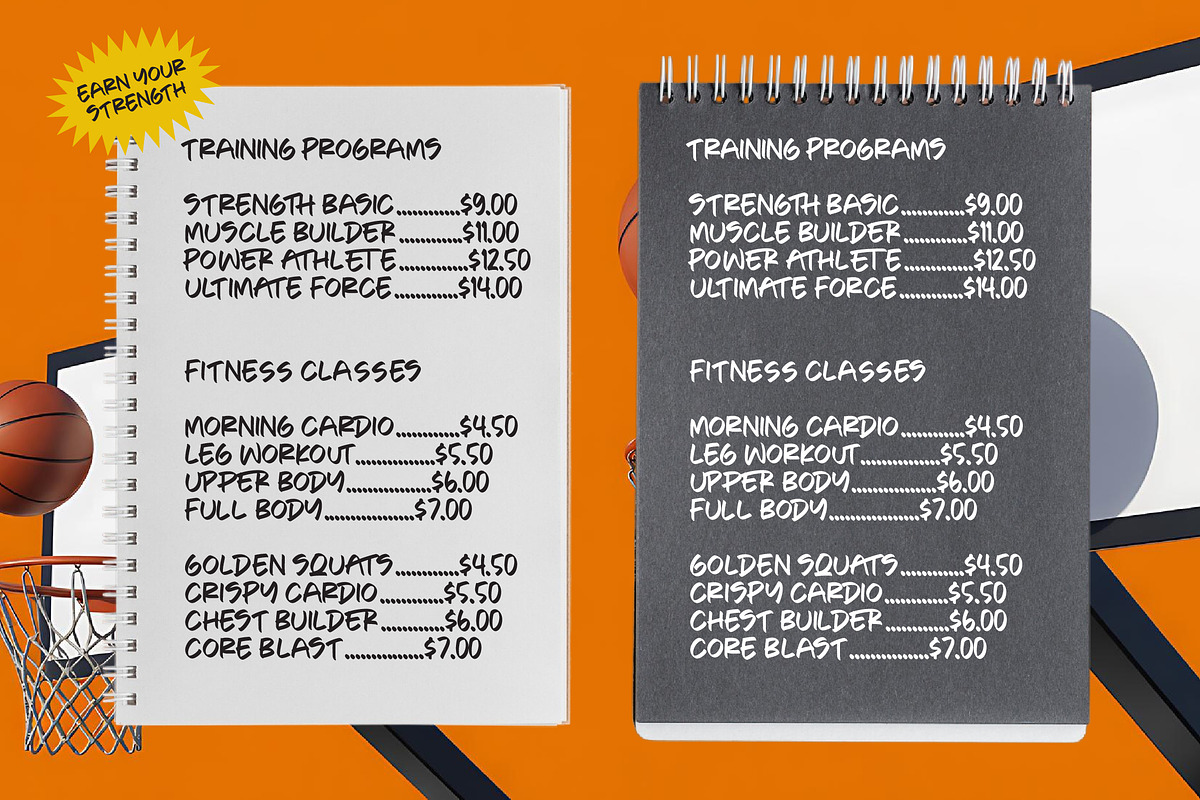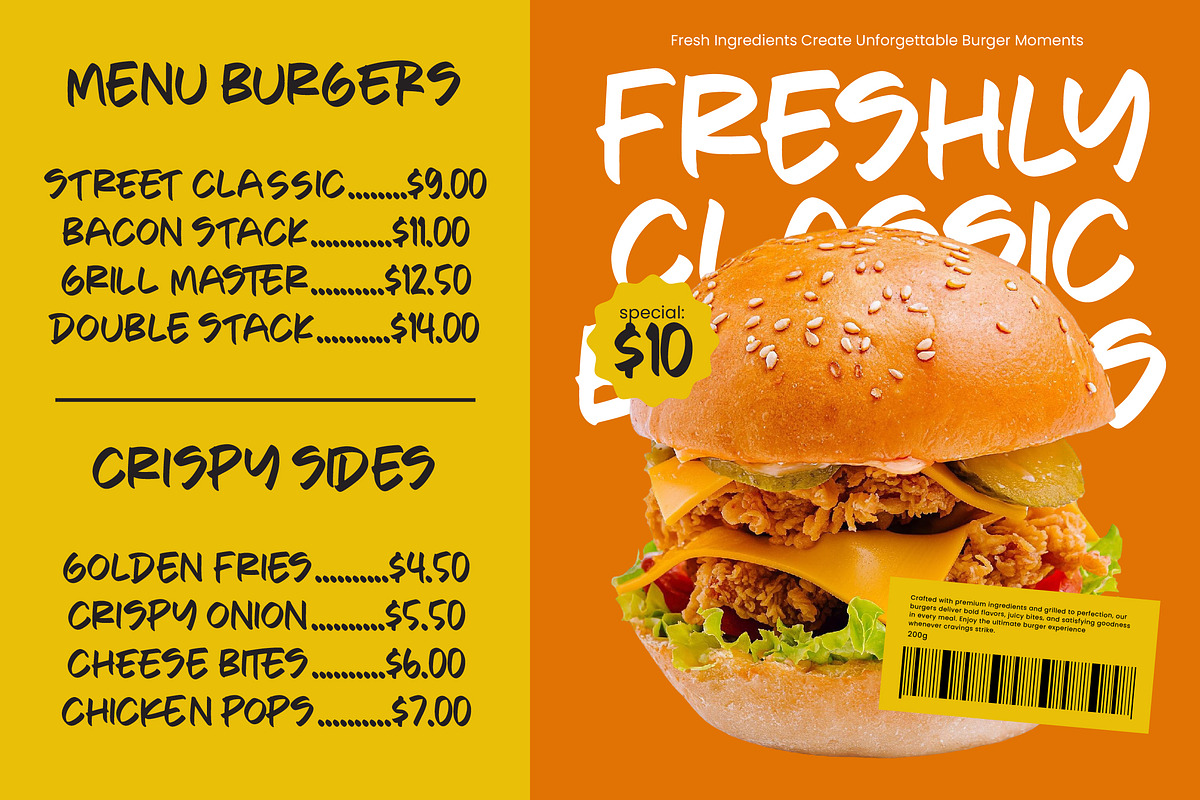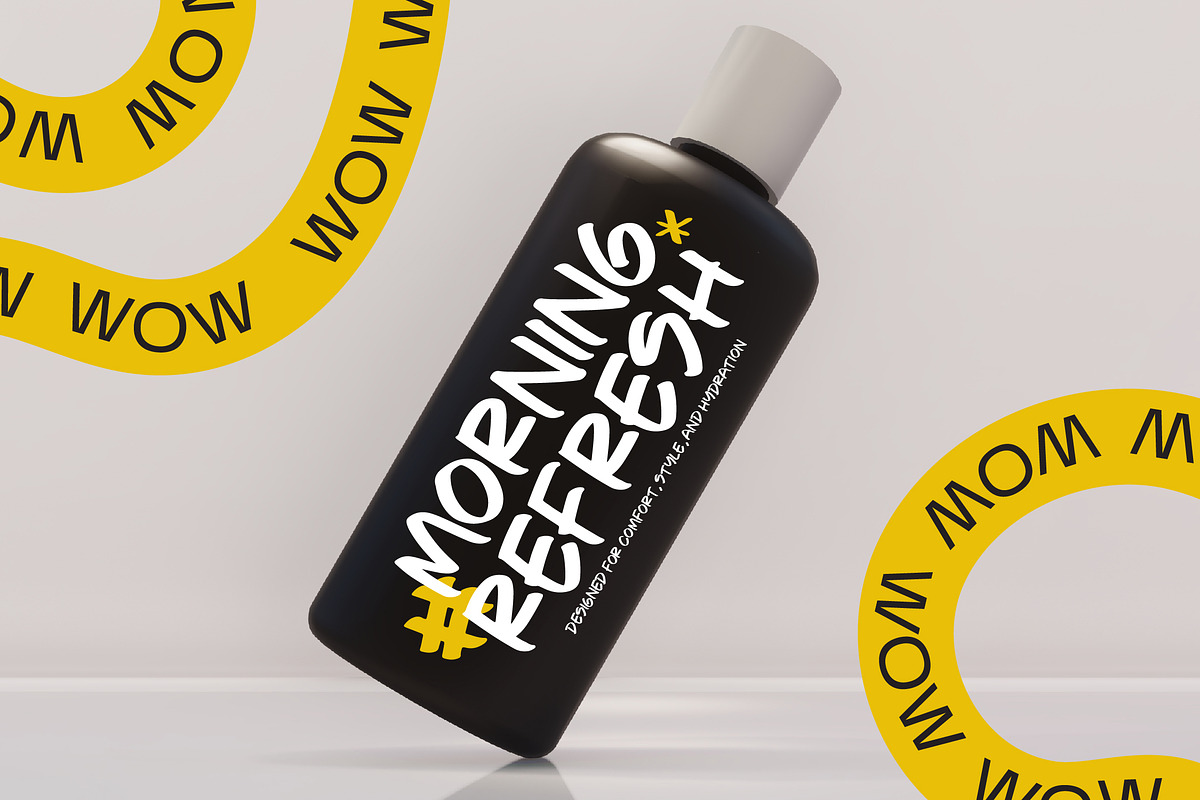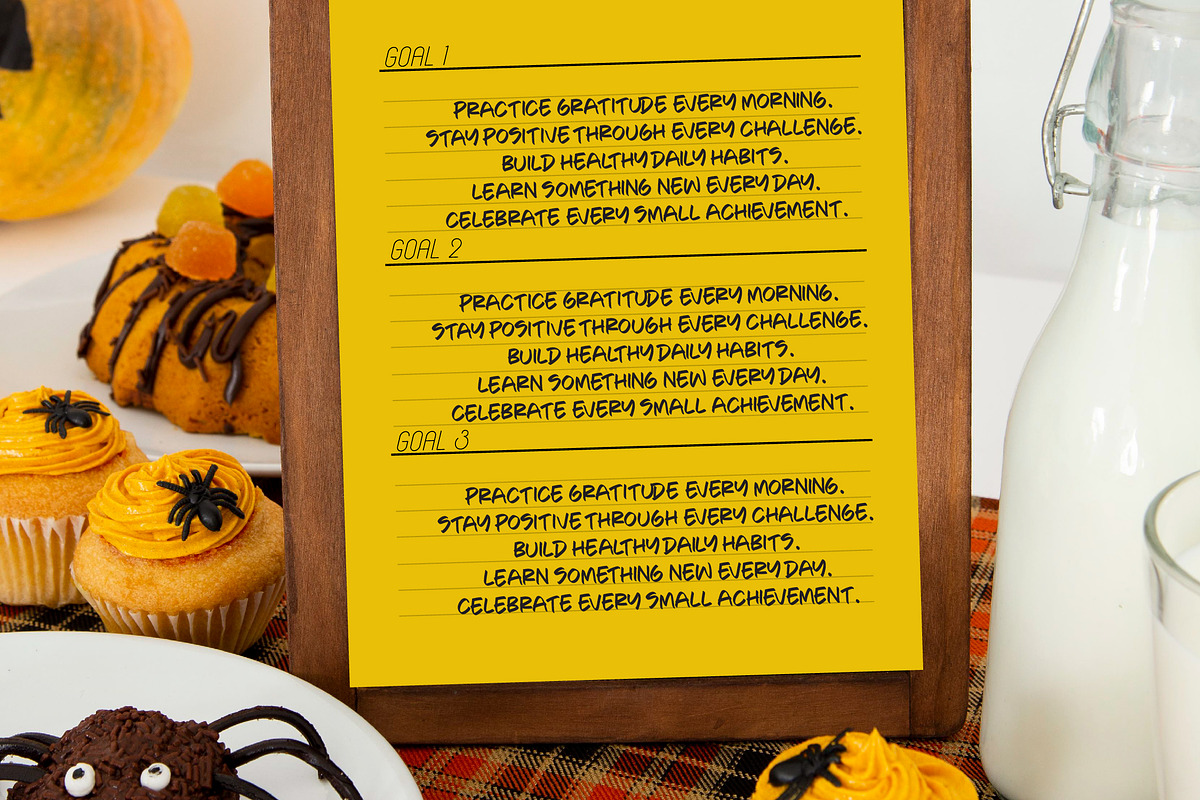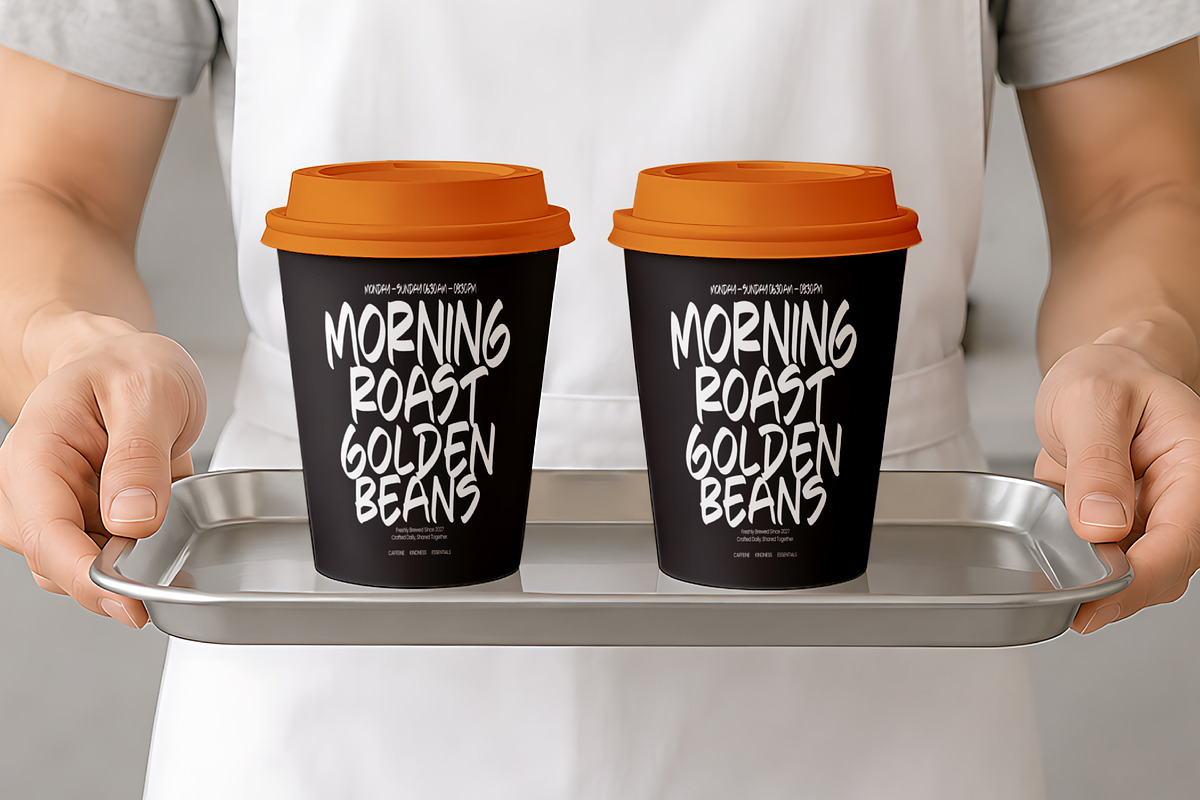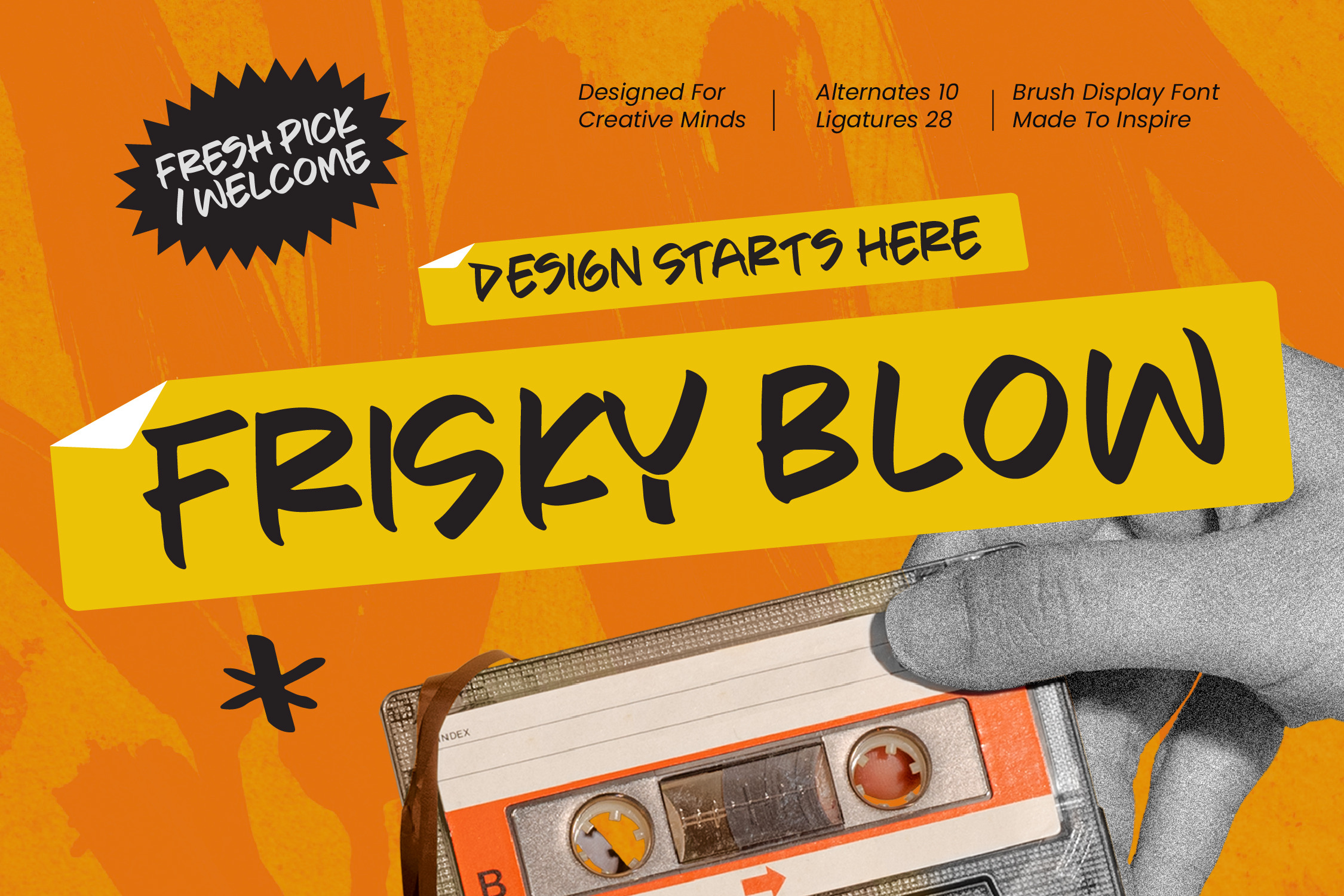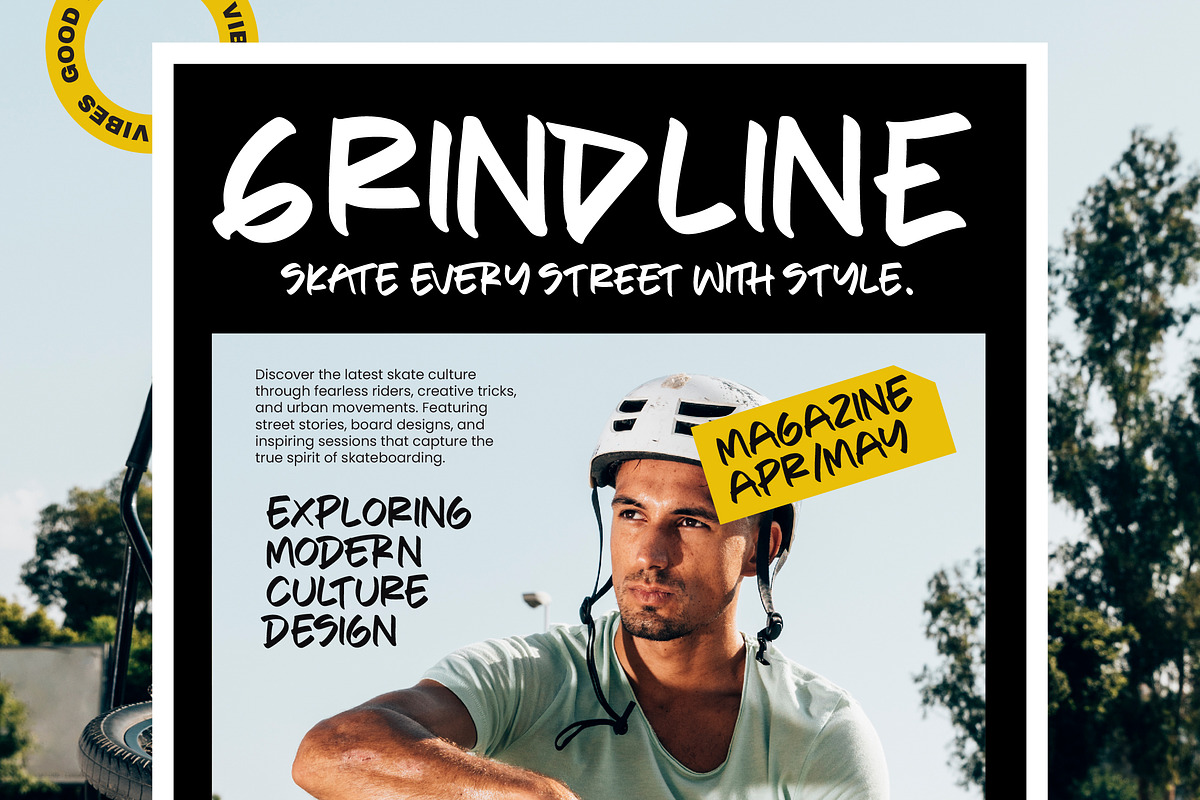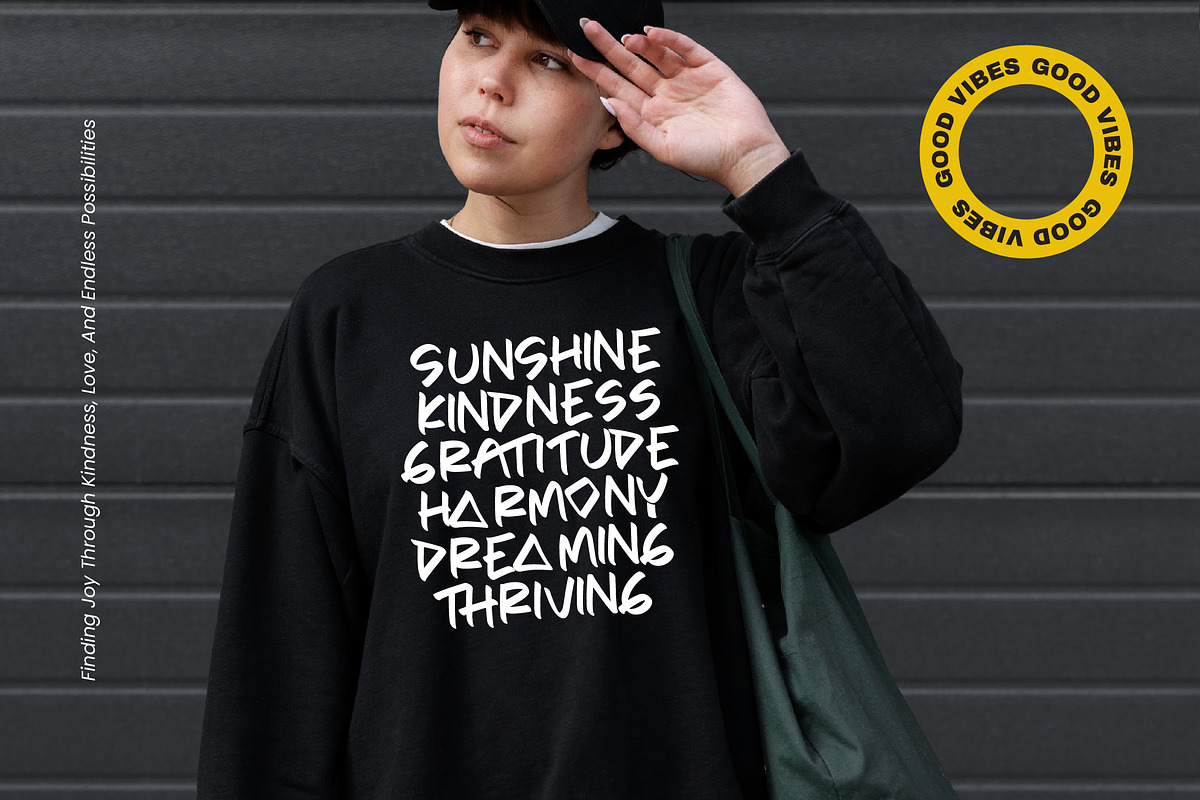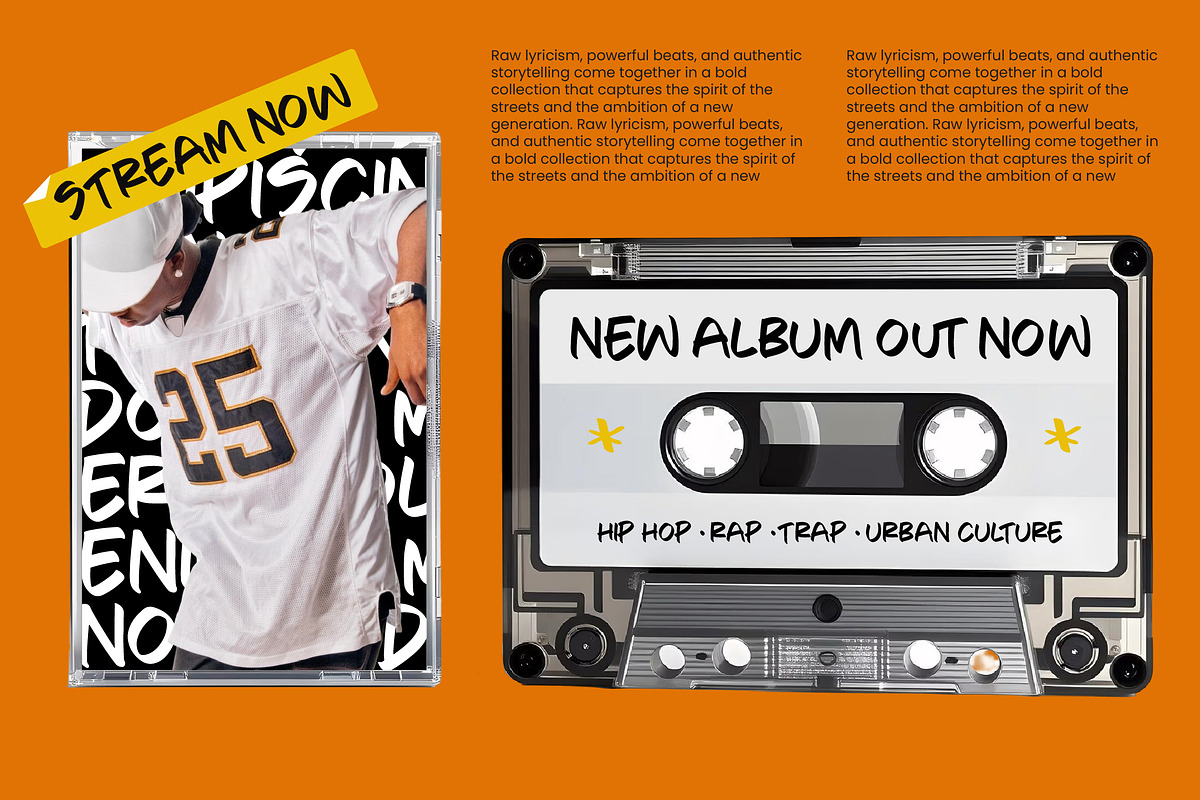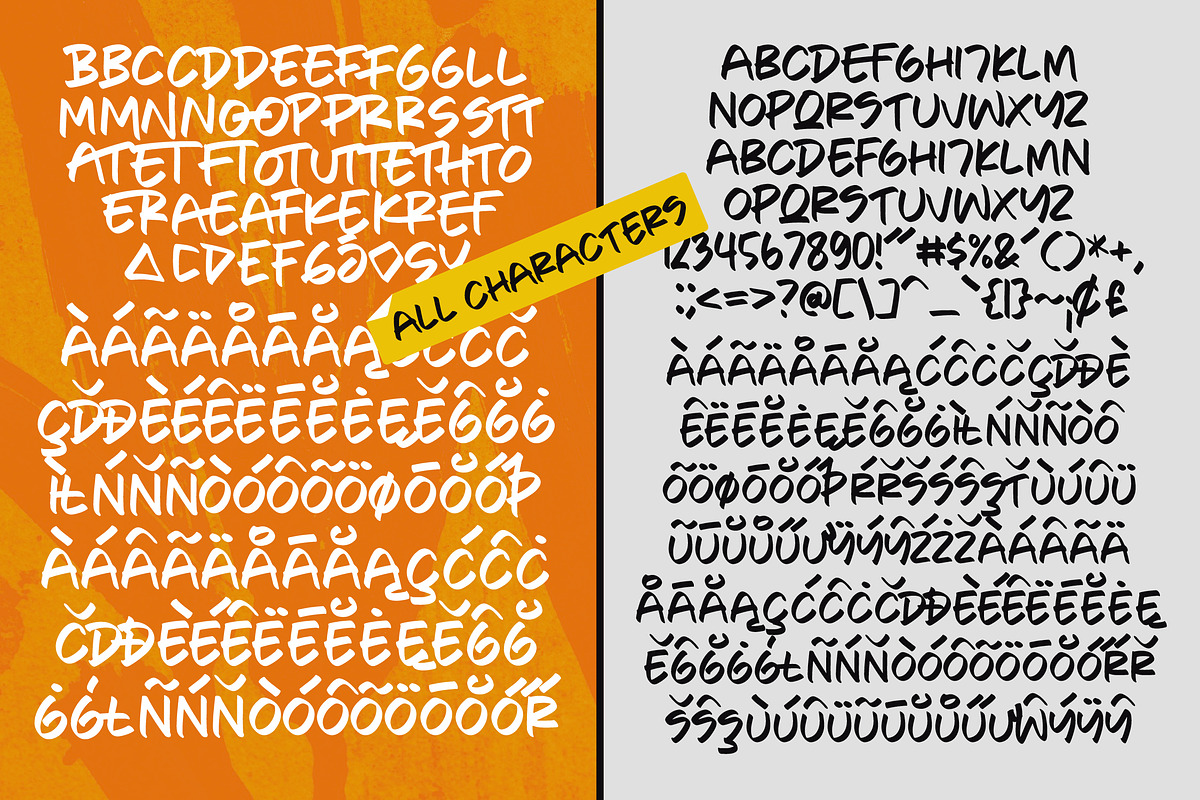
Frisky Blow Brush Display Font
Frisky Blow - Brush Display Font , Elevate your creative projects with the raw, energetic aesthetic of a truly hand-crafted masterpiece. Frisky Blow - Brush Display Font captures the essence of authentic brush strokes, providing a dynamic energy that commands immediate attention. Its bold visual impact is perfect for designers looking to inject personality and a human touch into their digital and print compositions, ensuring your message is delivered with unmistakable confidence.
Engineered for high performance and global reach, this typeface offers unparalleled flexibility for modern designers. With its extensive multilingual support, Frisky Blow - Brush Display Font adapts seamlessly across global markets, making it incredibly versatile for international projects. The inclusion of 10 stylistic alternates and 28 professional ligatures ensures that every word remains unique, maintaining a natural flow and artistic rhythm that mimics genuine hand-painted lettering.
Unlock the full potential of your brand identity with a font designed for maximum visibility and contemporary style. This versatile display font is the ideal application for streetwear branding, music industry graphics, apparel design, and high-end packaging. Whether you are crafting social media content or large-scale editorial posters, it provides a professional-grade solution that resonates deeply with a youthful, modern audience.
Transform ordinary layouts into extraordinary visual statements with a typeface that was truly made to inspire. Choosing Frisky Blow - Brush Display Font means investing in a high-impact tool that perfectly balances artistic flair with commercial functionality. It is an essential asset for creative minds who demand expressive typography and want their work to stand out in a competitive marketplace.